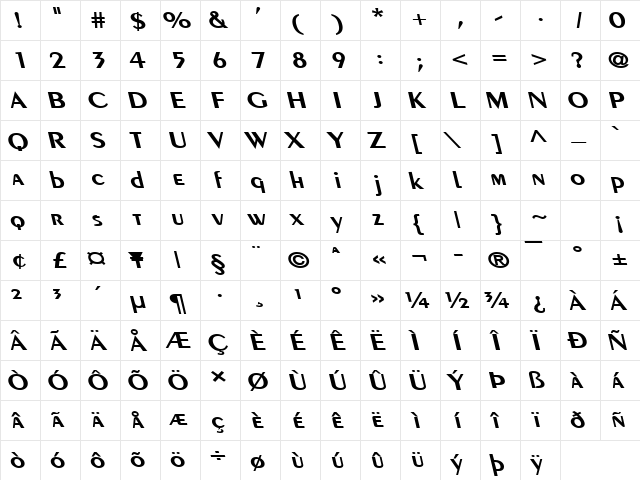
Pare Wide Reverse BoldItalic Font Preview
Design Context for Pare Wide Reverse Typeface
Pare Wide Reverse offers clean, dependable letterforms without strong stylistic allegiance, making it a practical choice for designers who need flexibility. Its italic angle brings a sense of urgency and motion to the letterforms. The heavy weight commands attention and anchors typographic hierarchies.
Pro Tip: Try Pare Wide Reverse for annotation and caption copy alongside an upright companion — the contrast in angle creates a dynamic but ordered typographic system.